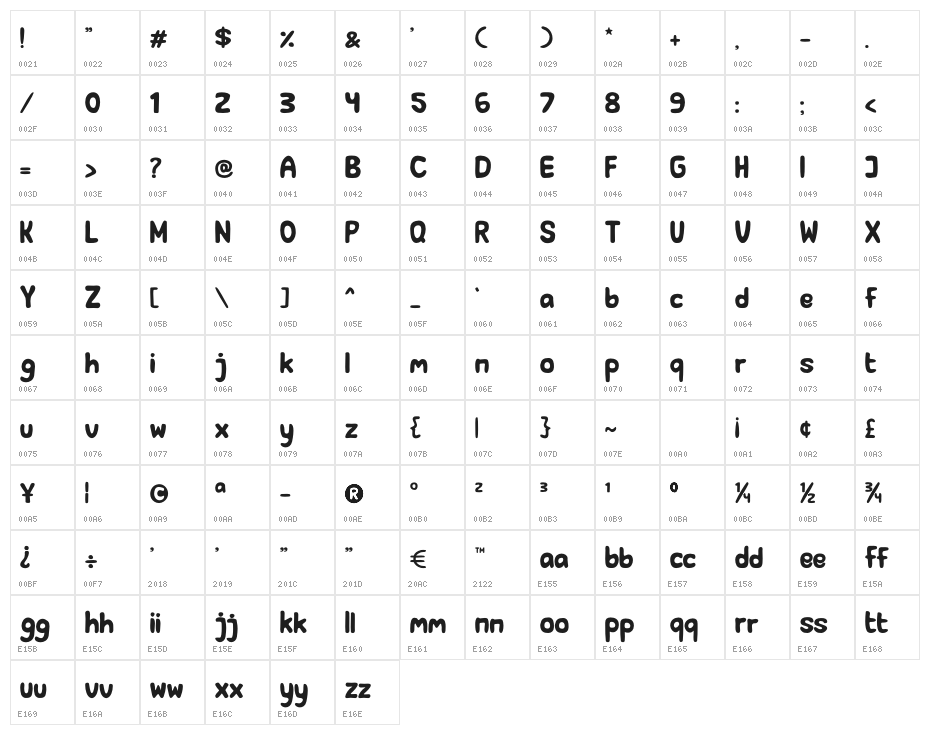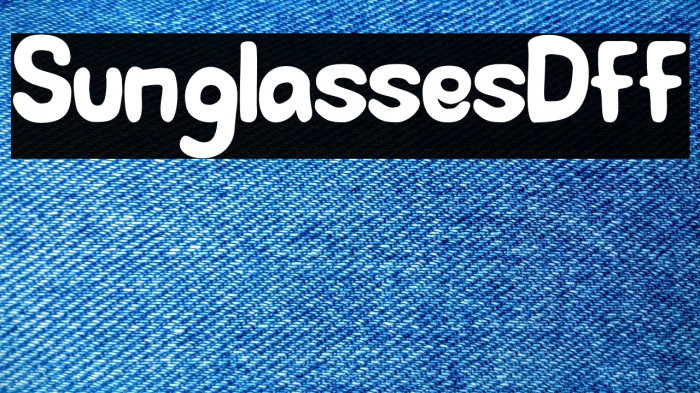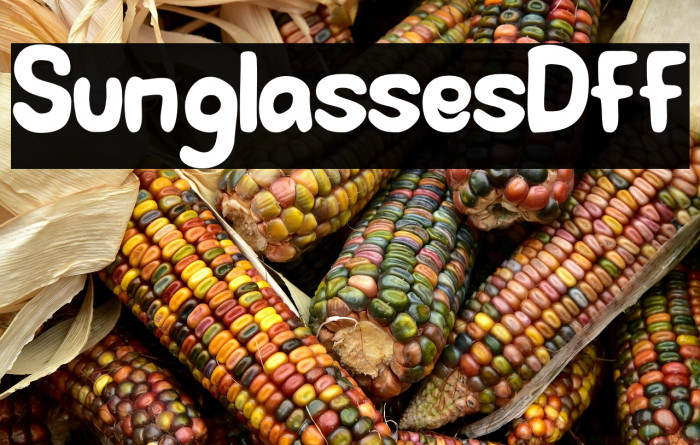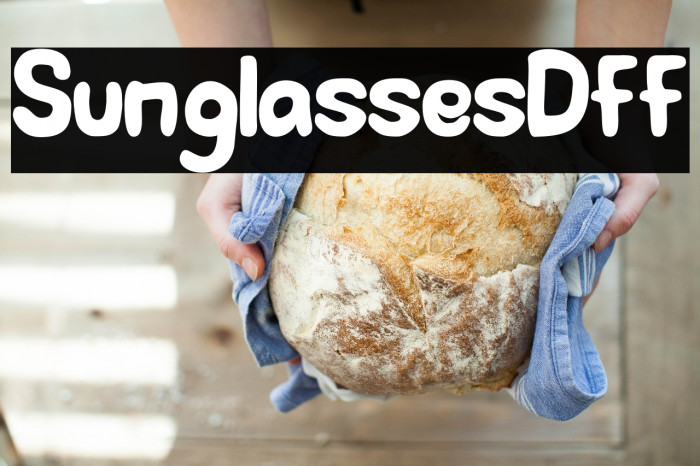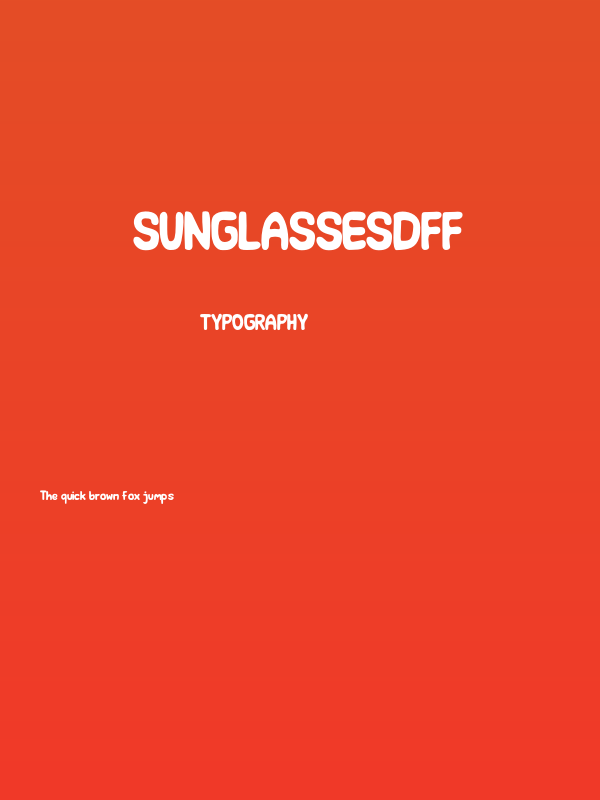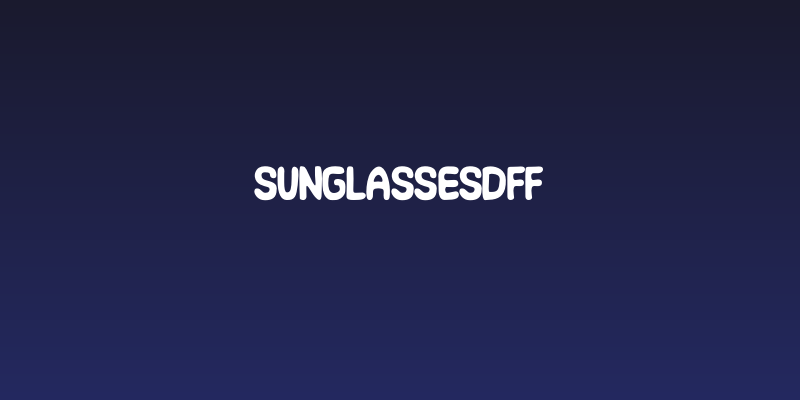
SunglassesDff Font
SunglassesDff Description
This playful and bold font features rounded, bubble-like characters that convey a sense of fun and approachability. The letters are thick and uniform, with a consistent stroke width that gives the font a cohesive look. The rounded edges and lack of sharp angles contribute to its friendly and informal appearance. The numerals and special characters maintain the same bubbly style, ensuring visual harmony across all elements. This font is ideal for projects that require a whimsical and lighthearted touch, such as children's books, playful branding, or casual event invitations.
| Proposed Projects | Children's books, playful branding, casual event invitations, posters, and social media graphics. |